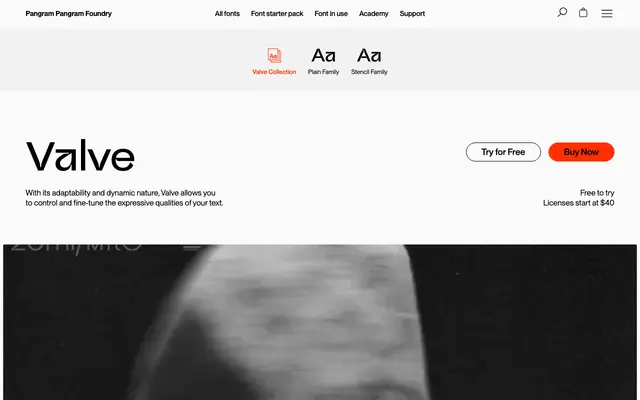
PP Valve specimen from Pangram Foundry
An industrial grotesque by Valerio Monopoli with an ink-trapped Plain family and a matching Stencil cut, plus monospaced, humanist and cursive stylistic sets.
A two-family sans serif system with a Plain cut built for small-size readability through ink traps and a Stencil cut that exposes the modular bones underneath. Sixteen styles per family with italics, plus three main stylistic sets covering a blocky semi-monospaced variant, a humanist style and a cursive option, each with contextual ligatures that adapt to tracking. Useful range from bold branding and signage to refined editorial.
Pangram lists it under Grotesk, Italics, Sans Serif and Variable. A two-family system pairing an ink-trapped Plain workhorse with a Stencil companion that exposes the modular structure, with three stylistic sets covering monospaced, humanist and cursive flavours.